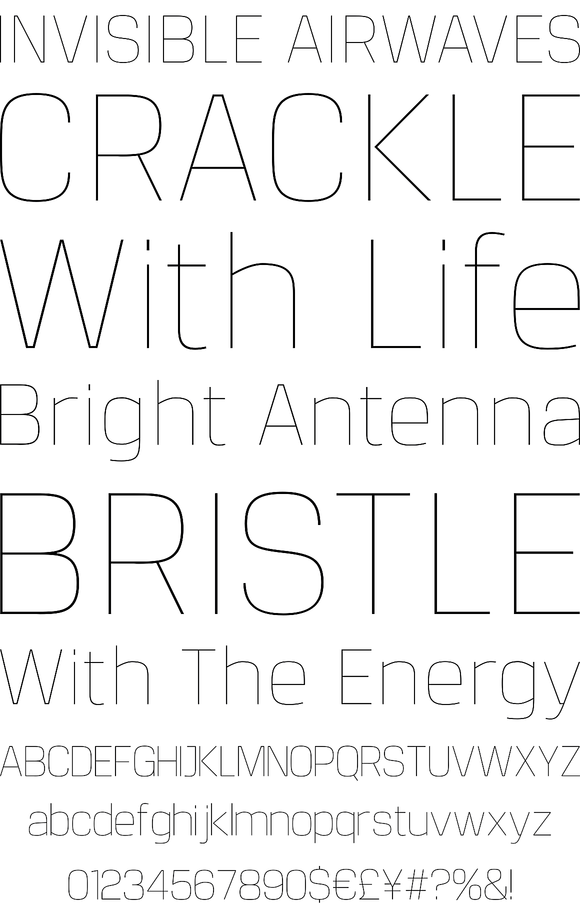
A compact sans serif with a technical origin. Each character was drafted out from a grid template and then refined through the application of subtle curved detailing. The result is a precise, contemporary typeface best suited to identity, mobile and video game development. Details include 9 weights with italics, 500 characters, 5 variations of numerals, stylistic alternatives, manually edited kerning and Opentype features.